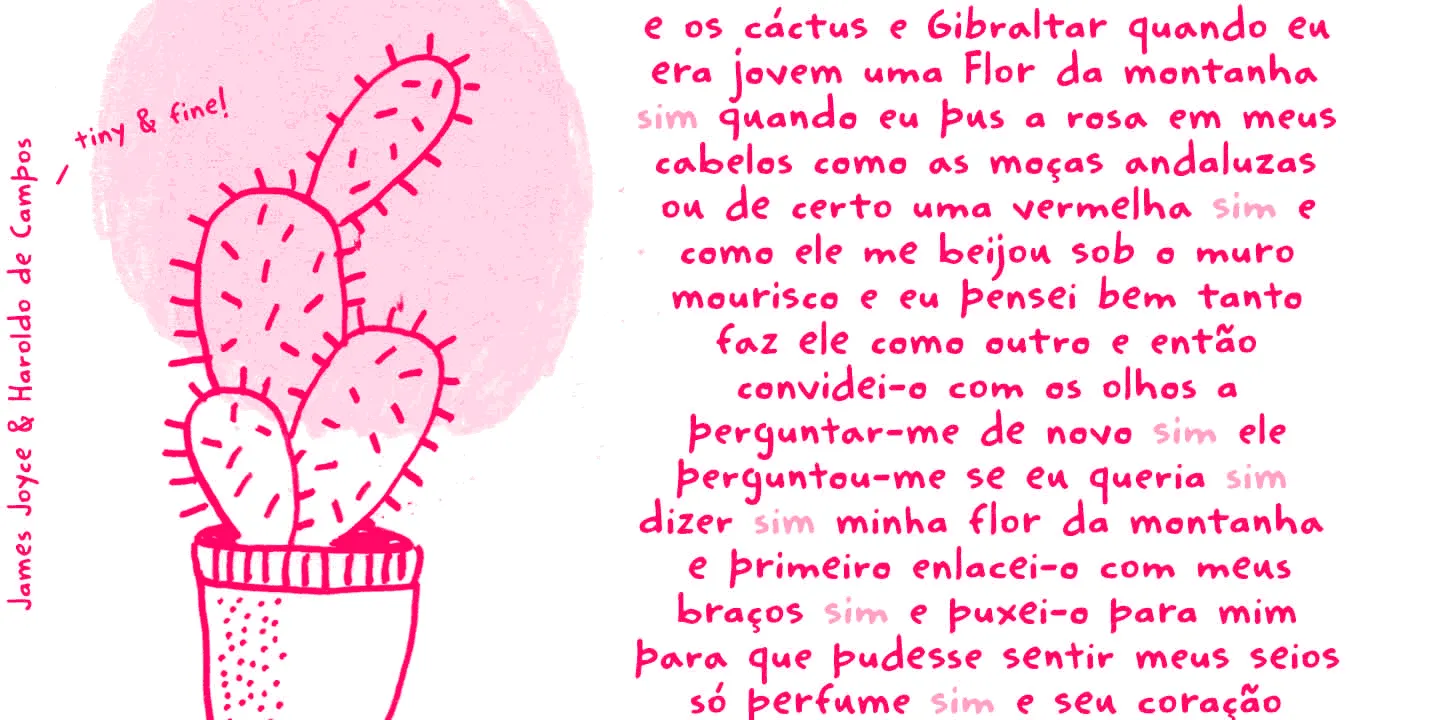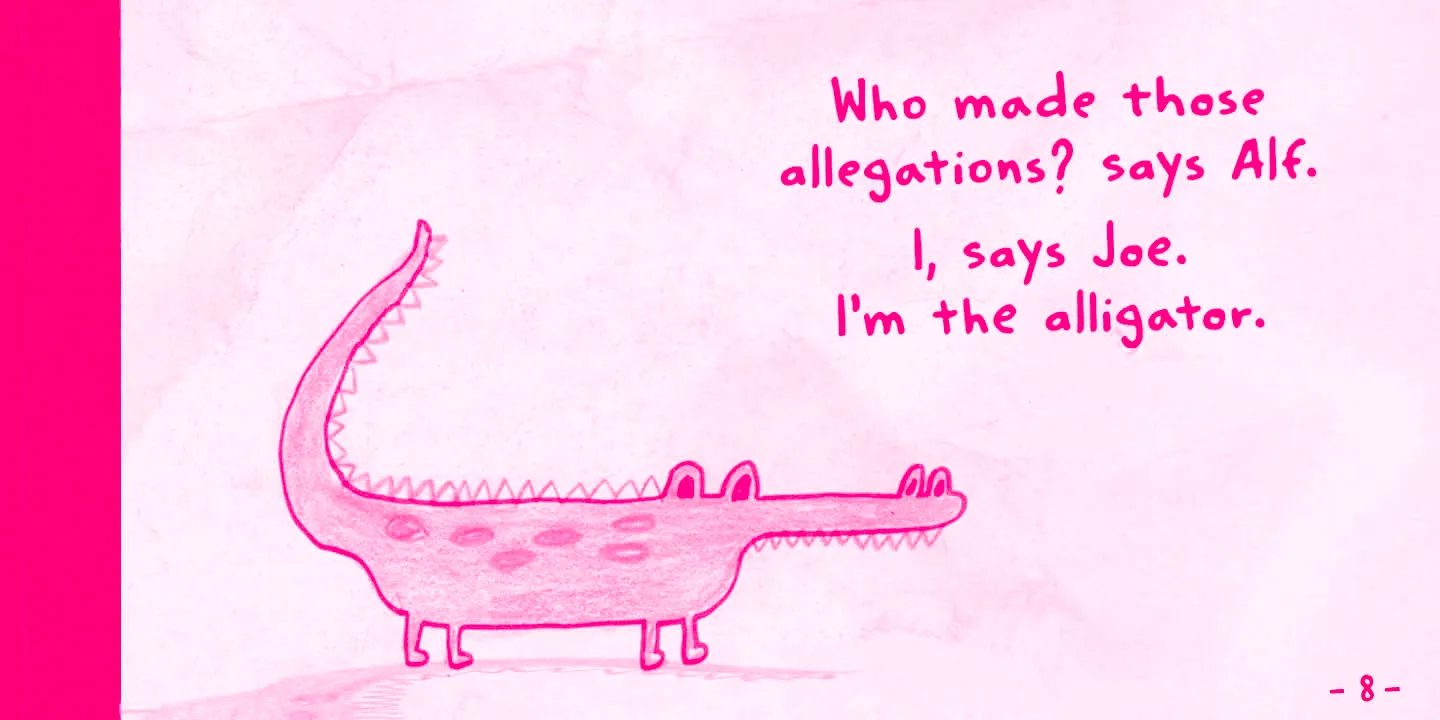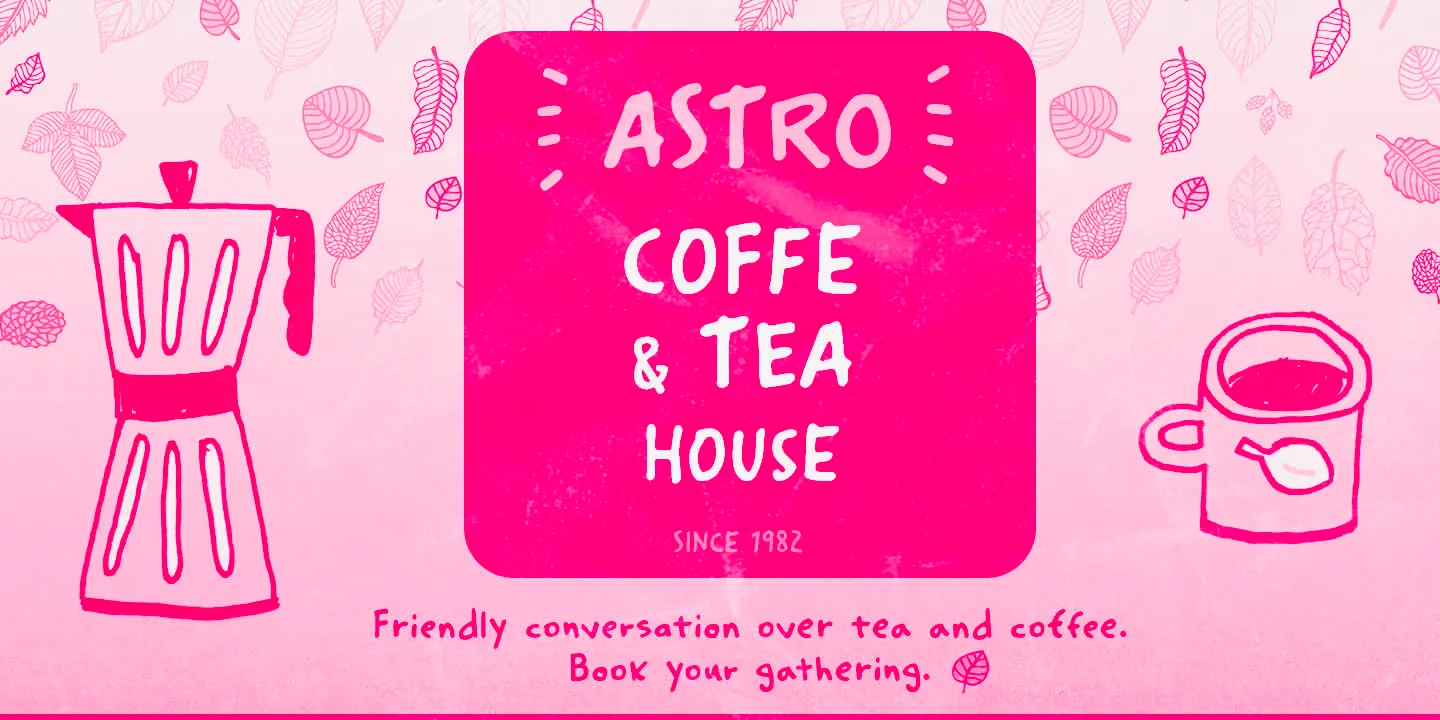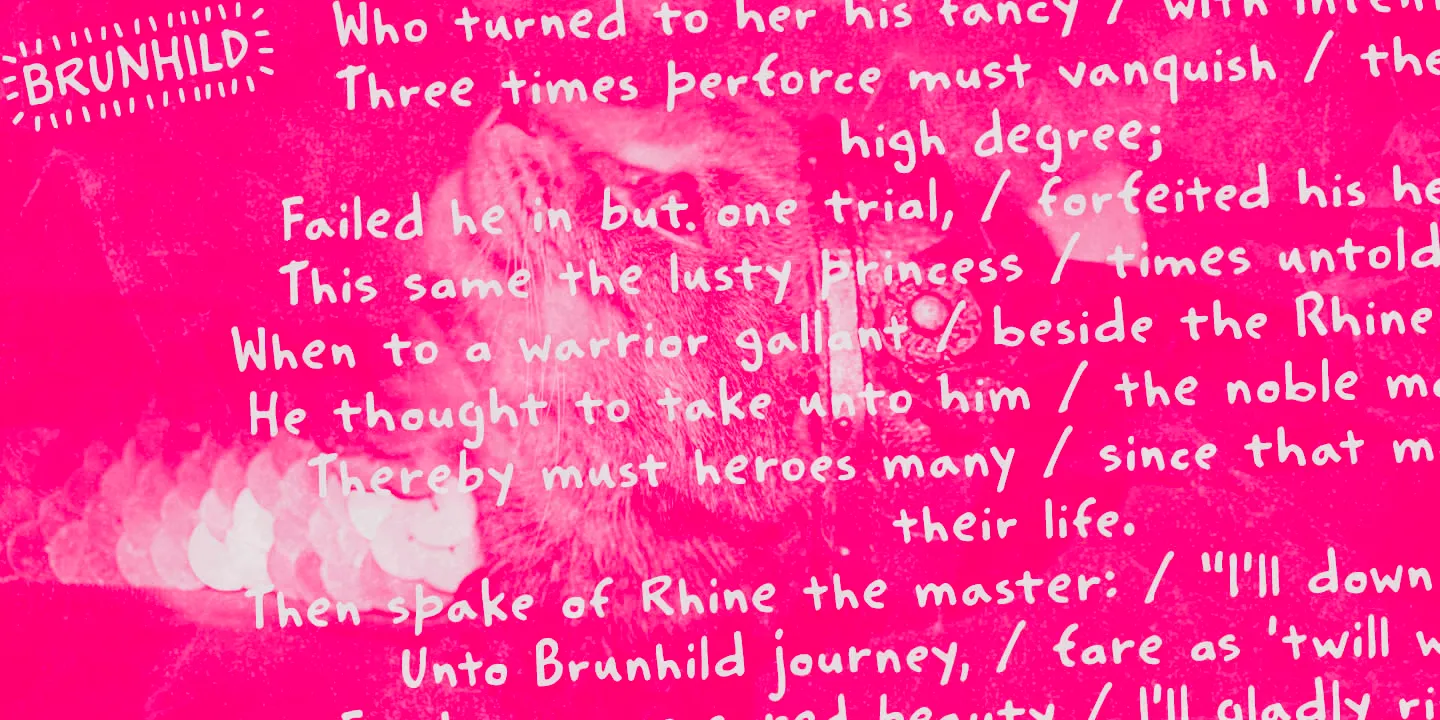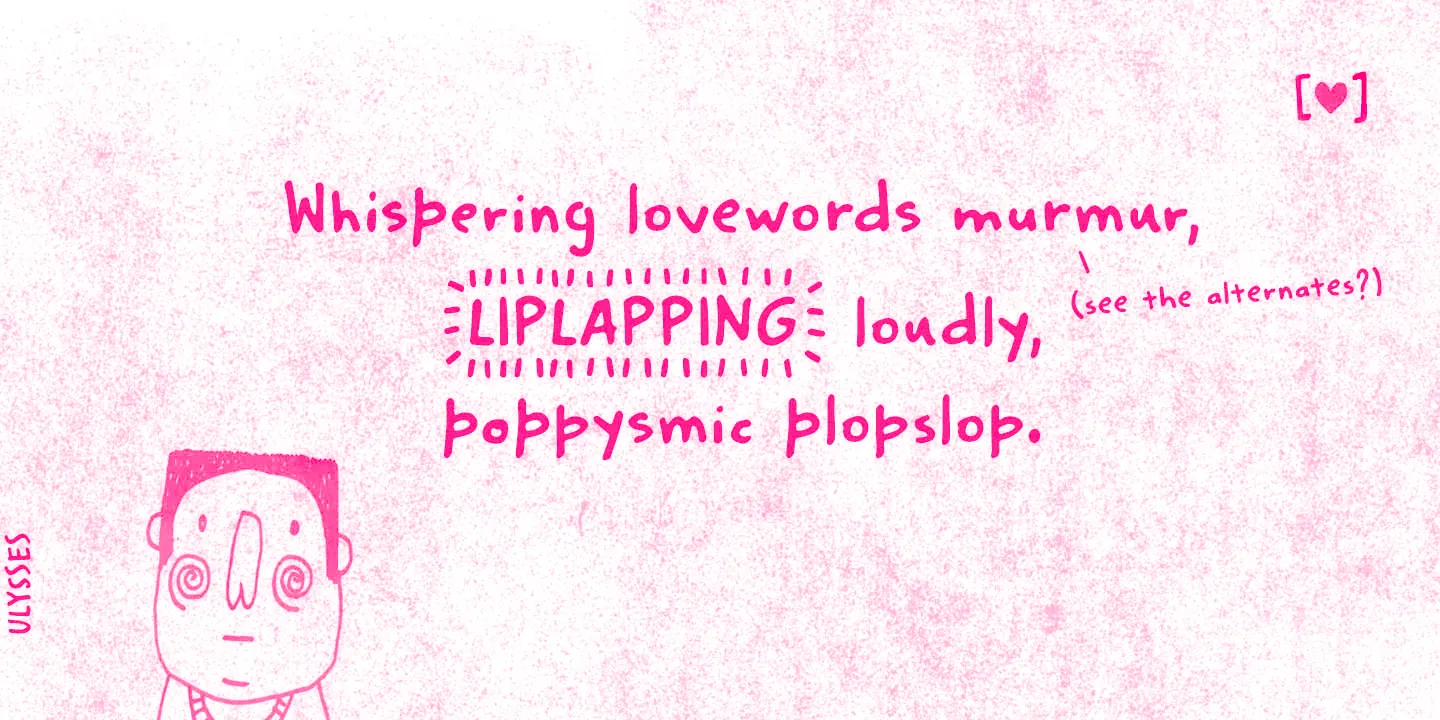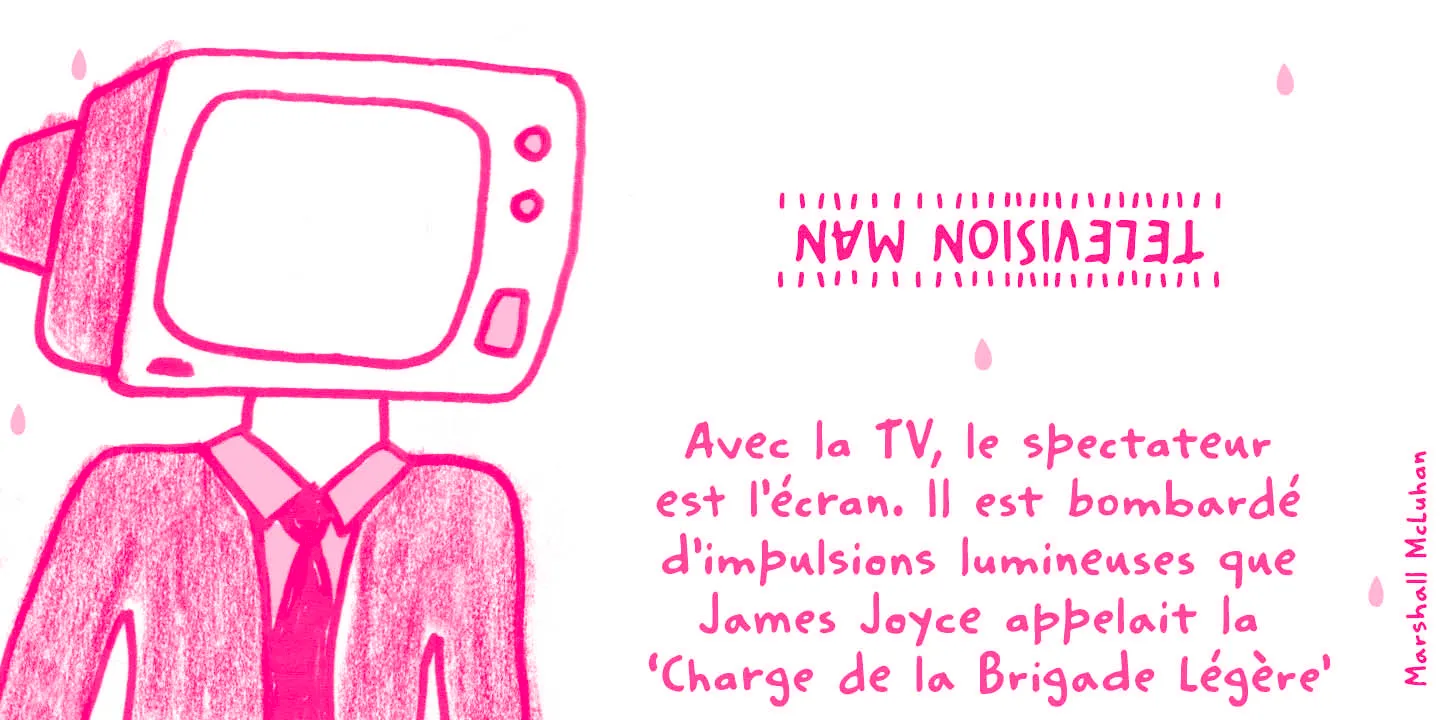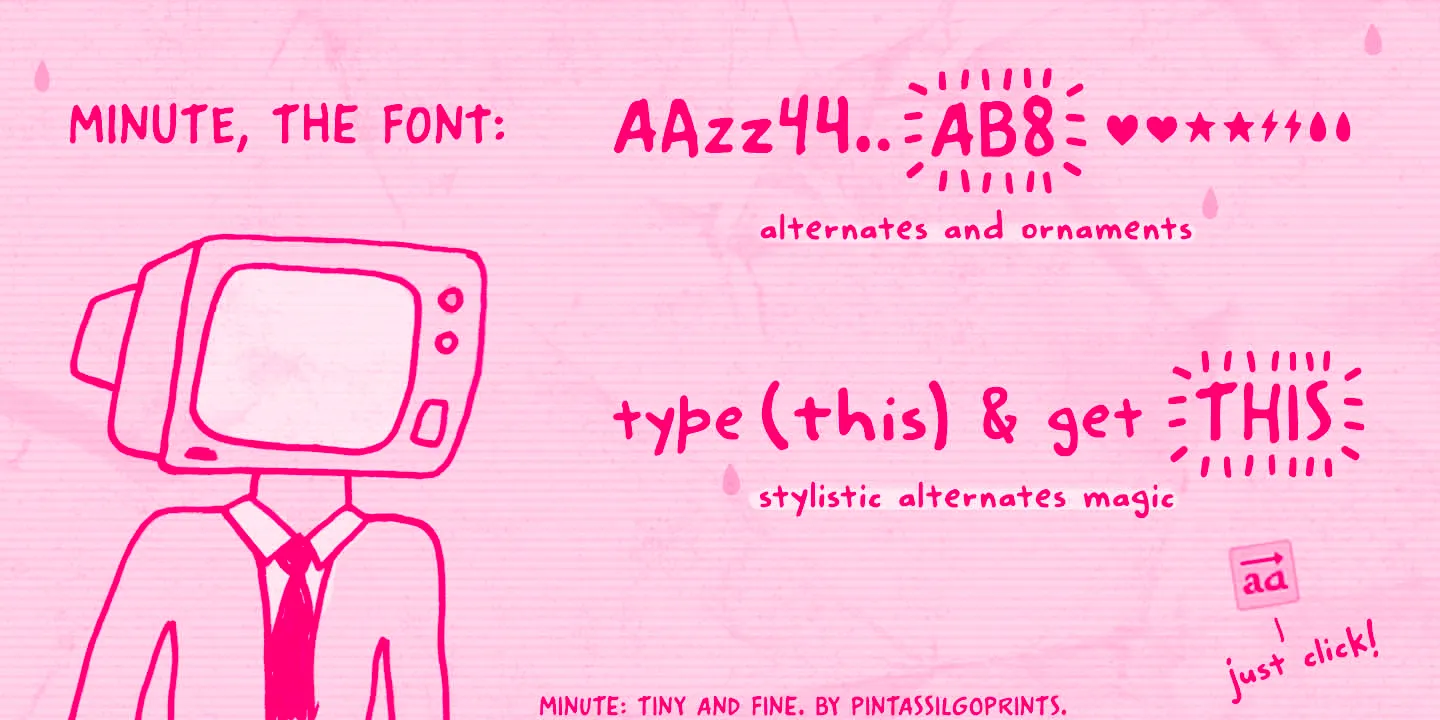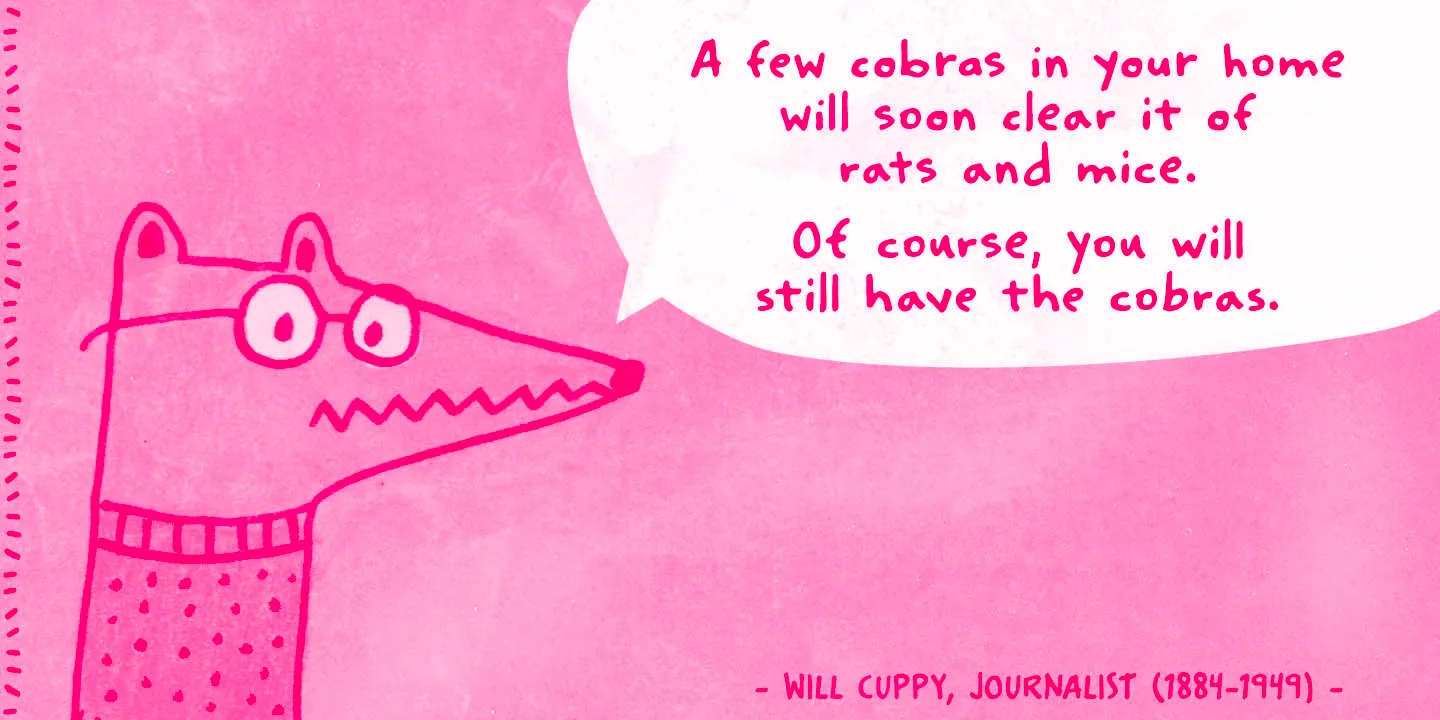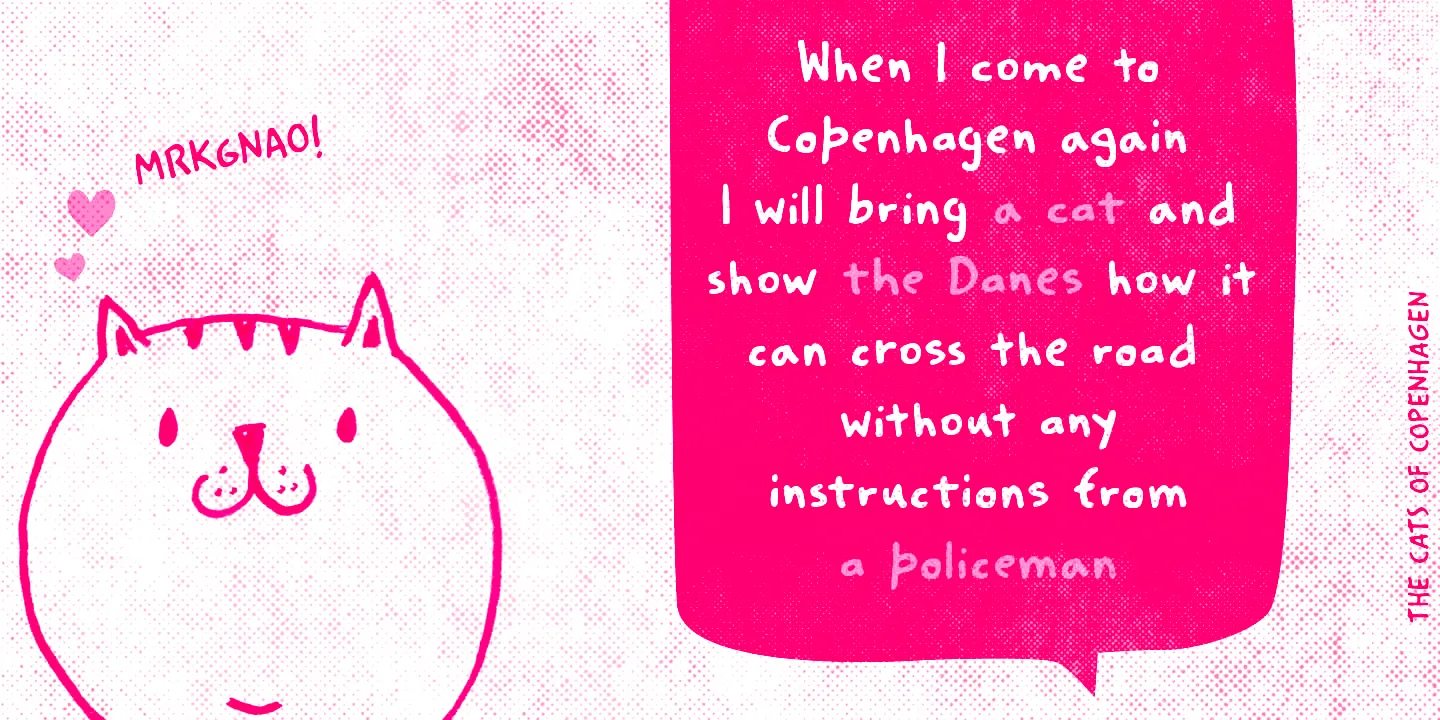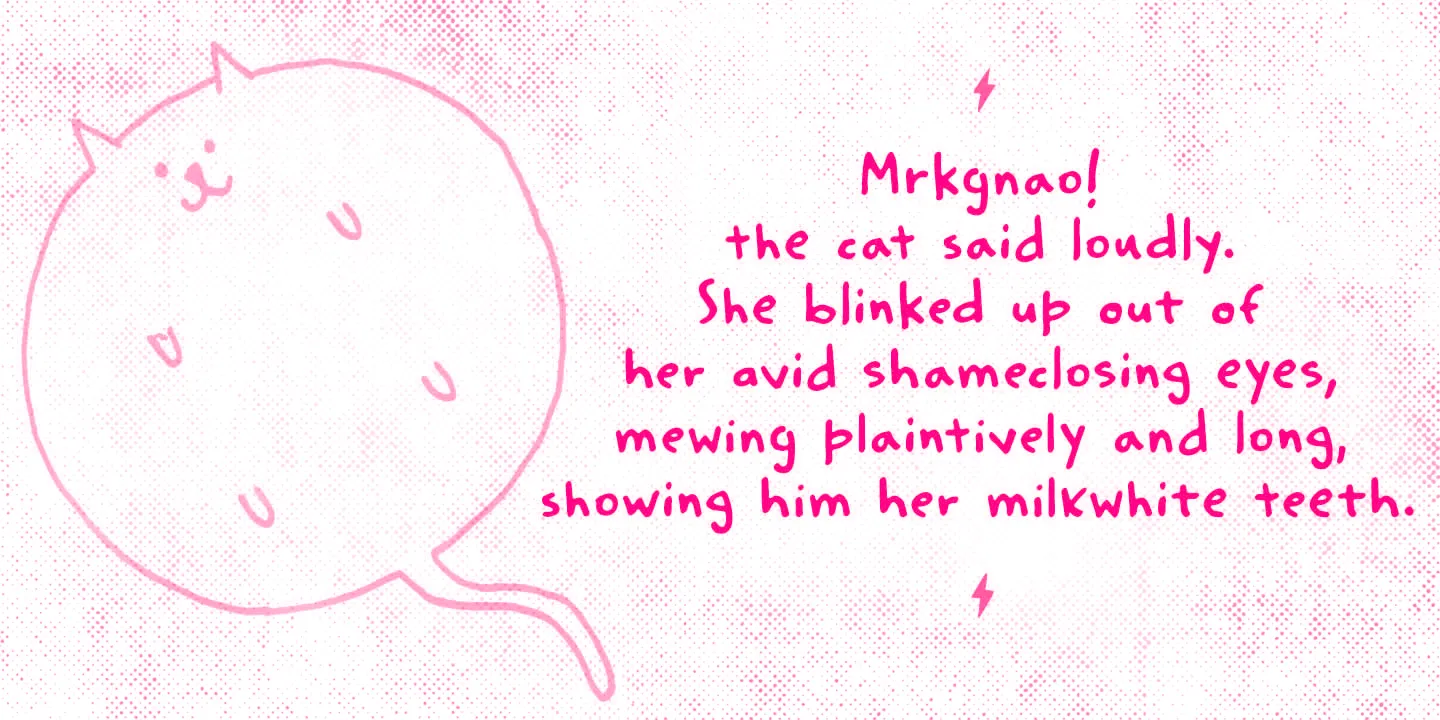
Minute Fonts
Minute
Minute is a lively handwritten font created using a felt-tip pen. Designers will find it easy to achieve a naturally casual tone and hand-crafted look using the various alternates. Don’t miss the shining or blinking effect! Words feel spontaneous and relaxed, like notes jotted on a sketchbook page. You get the sense that it was meant for a birthday card or something personalized, such as homemade jellies and jams. Everything will look great in this Minute! You bet!
- Ornaments
- Stylistic Sets